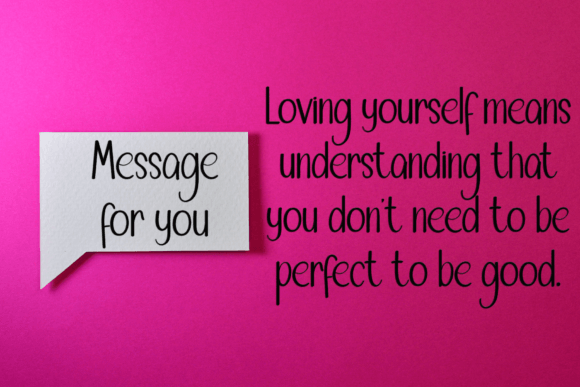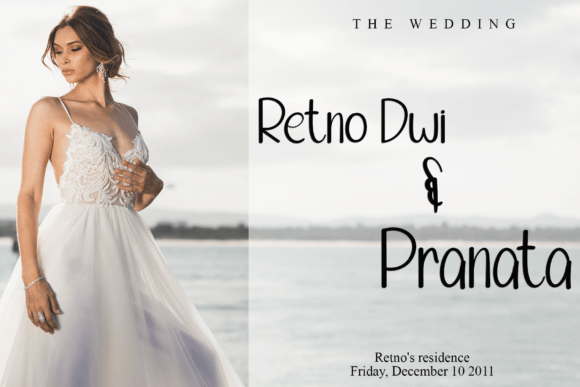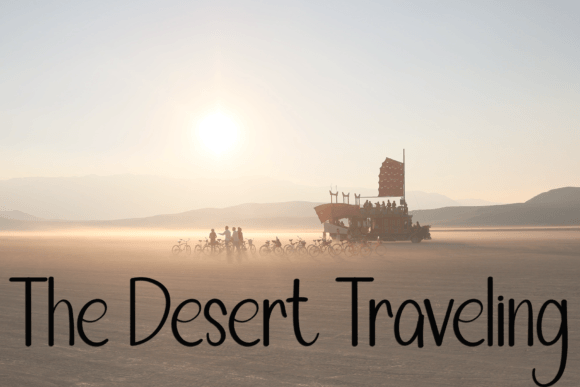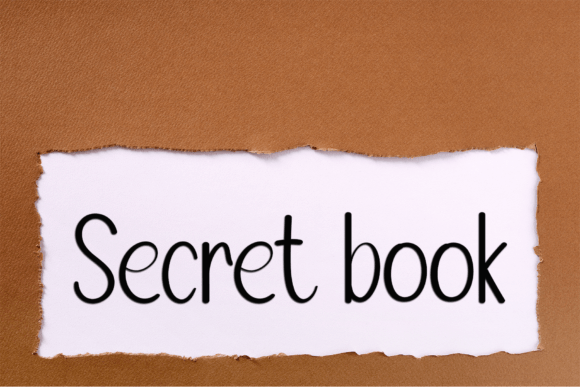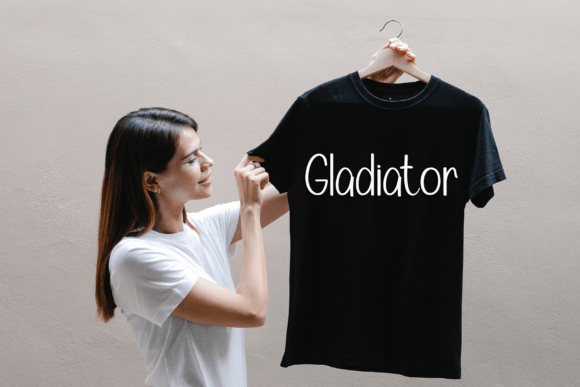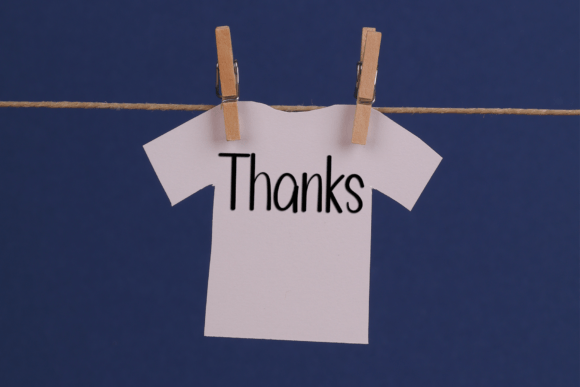
Introduction to Saturday Farmhouse Font
Saturday Farmhouse is a cool, simple, and playful handwritten font.
Incredibly versatile, this font fits a wide pool of designs, elevating them to the highest levels Add this font to your favorite creative ideas, and notice how it makes them come alive.
Key Features of Saturday Farmhouse Font
Why Choose Saturday Farmhouse Font?
Saturday Farmhouse Font offers exceptional quality and versatility, making it a valuable addition to your design toolkit. Whether you’re creating for personal projects or commercial use, Saturday Farmhouse Font delivers professional results.